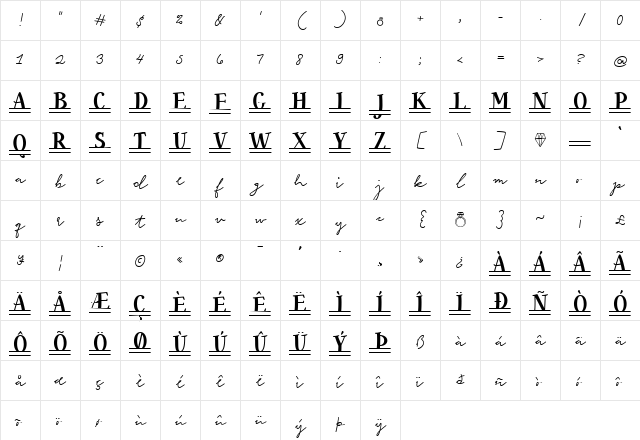
Be My Diamond Regular
Design Context for Be My Diamond
Be My Diamond is a composed and adaptable typeface that performs quietly and consistently across a wide range of design contexts.